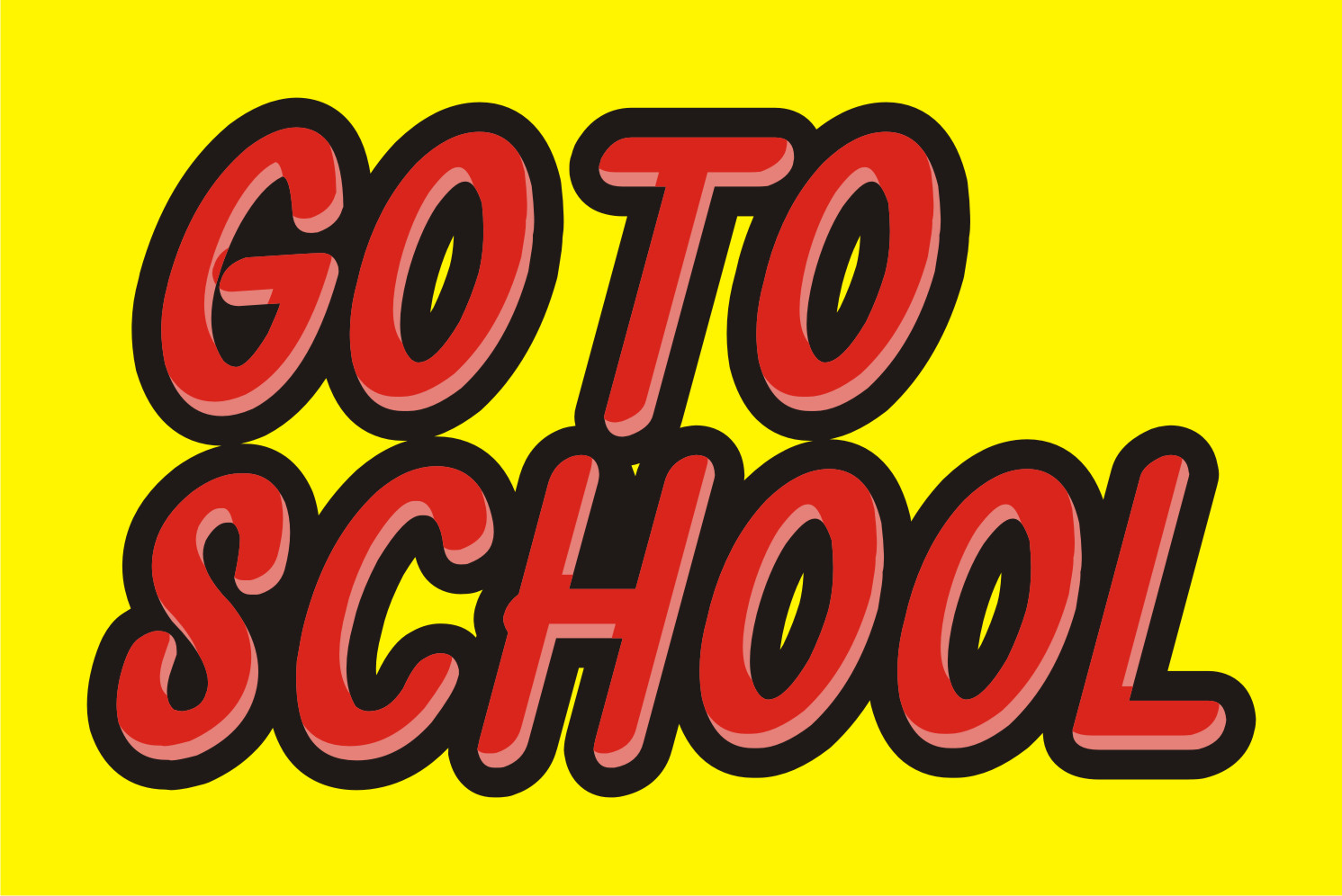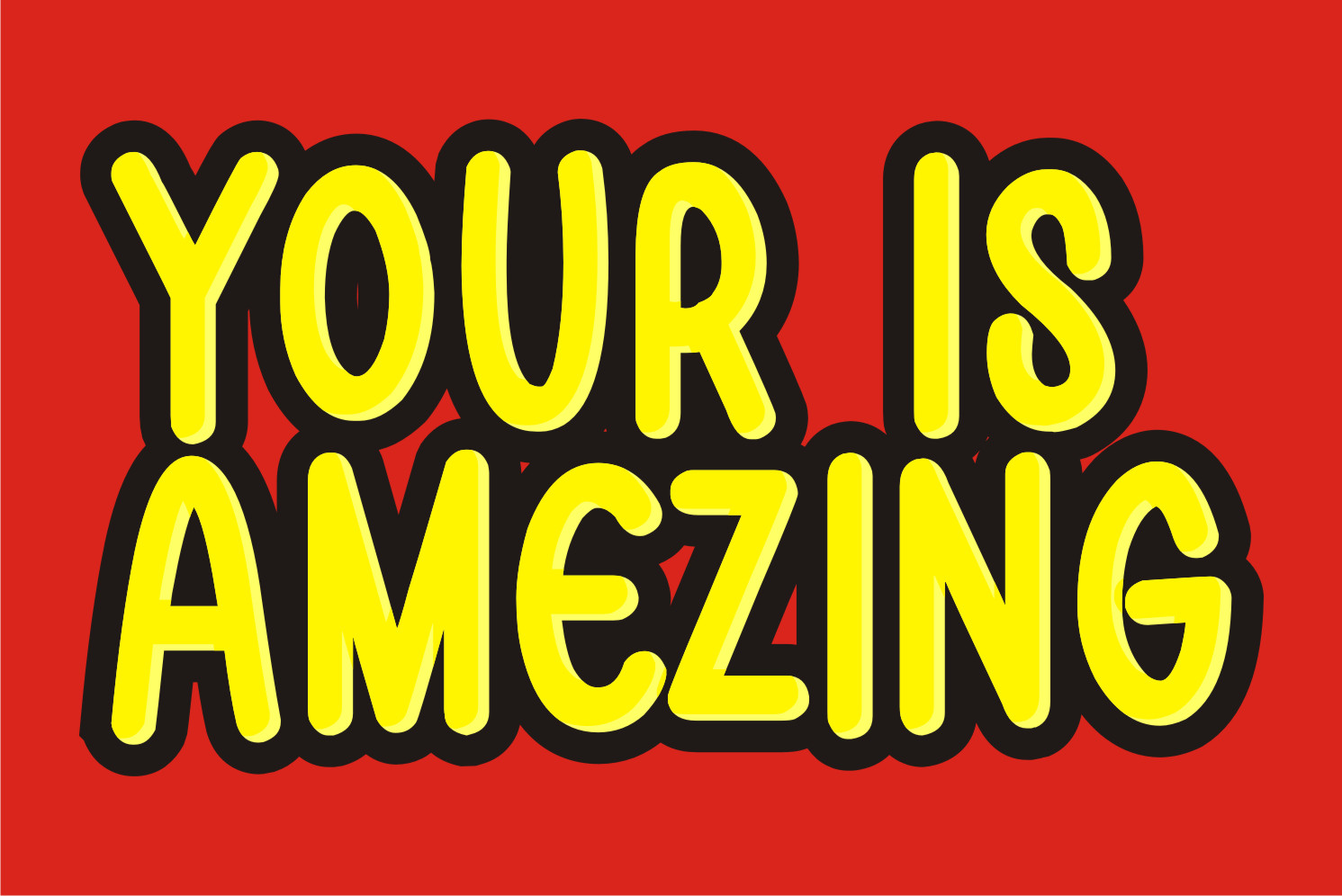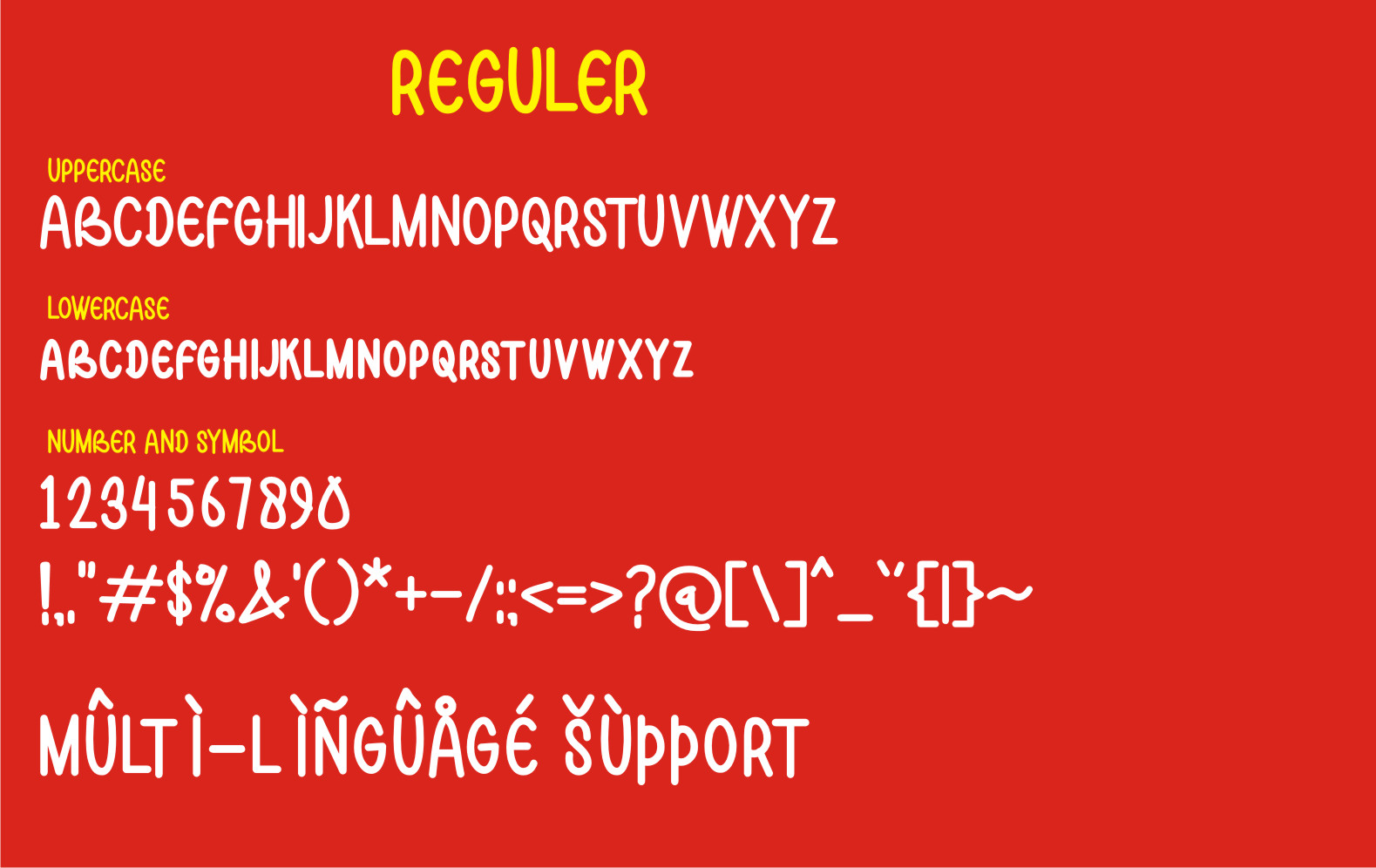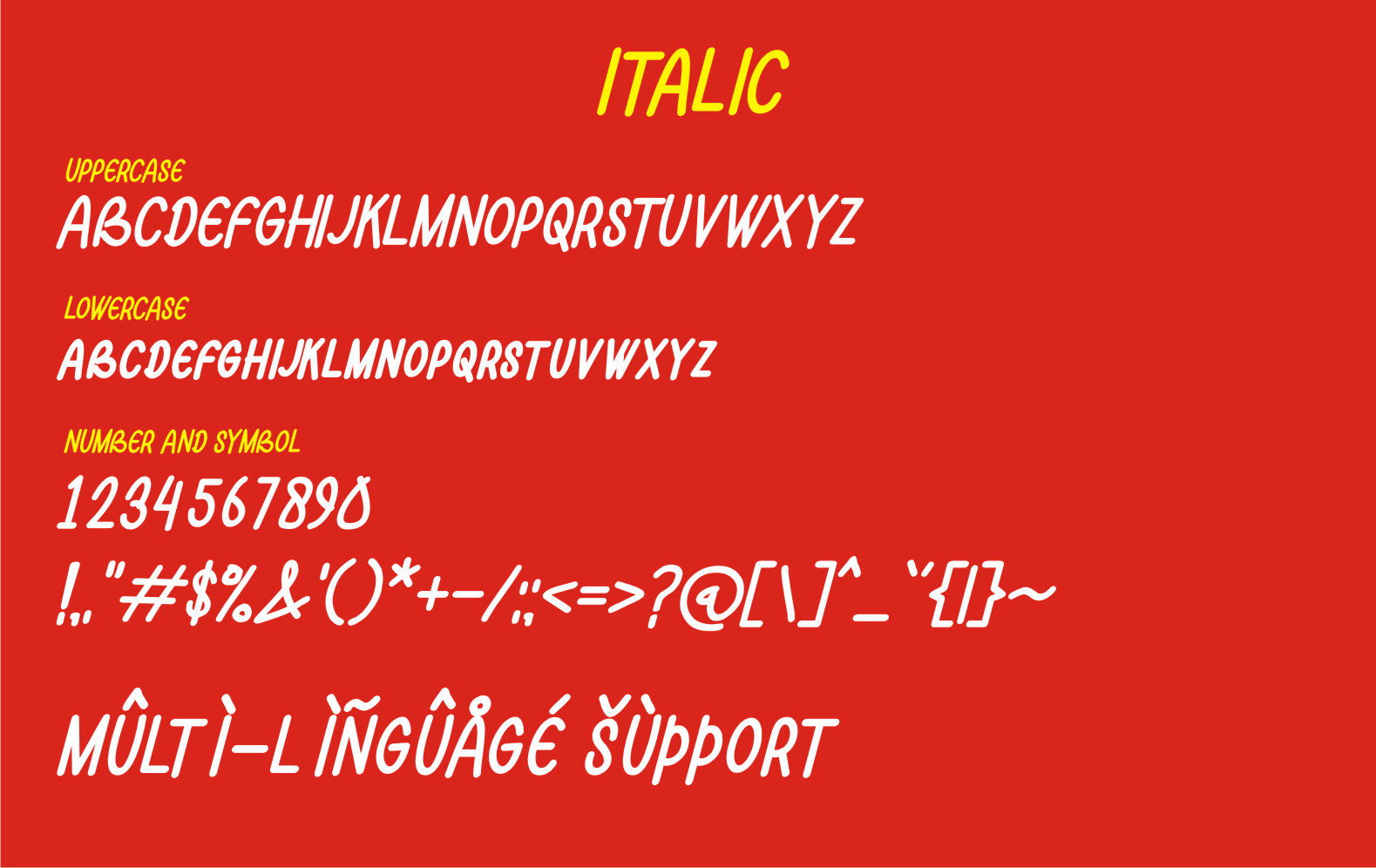
Morekid Font
Morekid Display Font
This is a cool, neat, and simple lettered display font. Its informal style and casual vibe will make this font a go-to choice for each of your creations that require a relaxed touch.